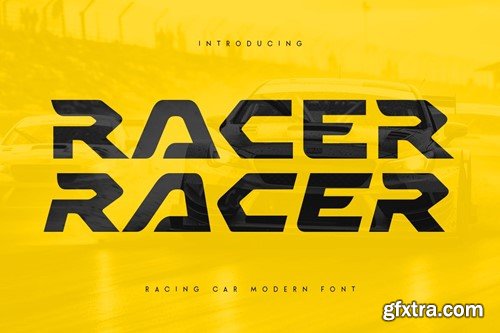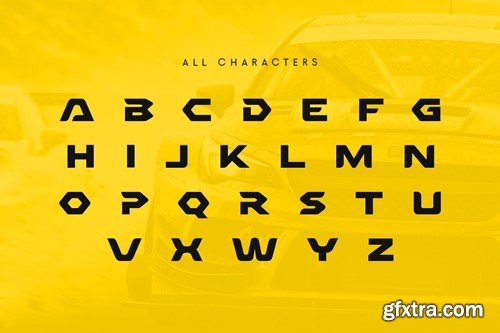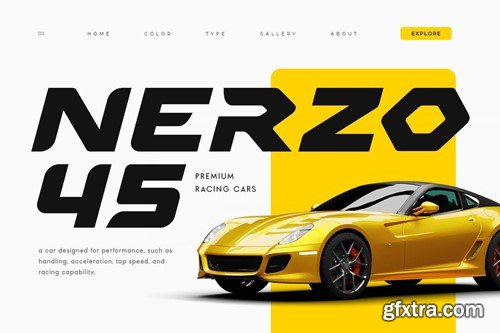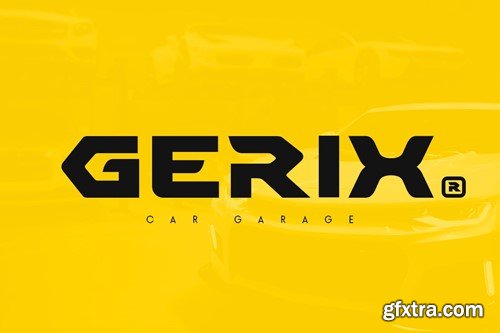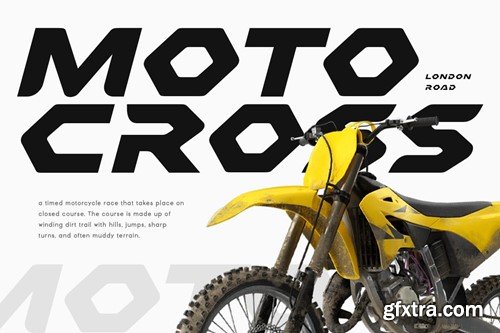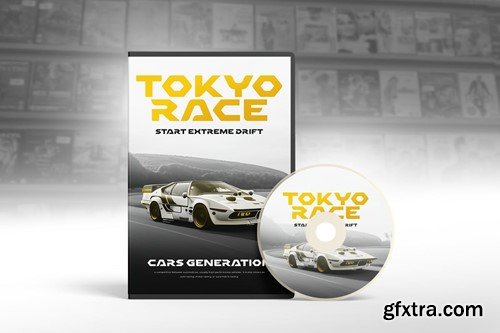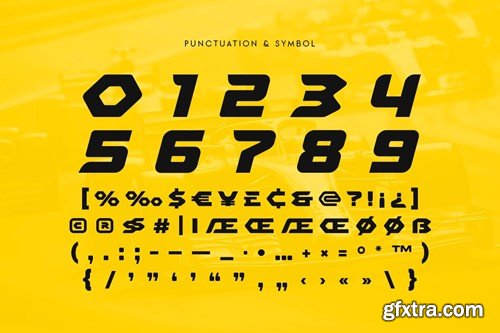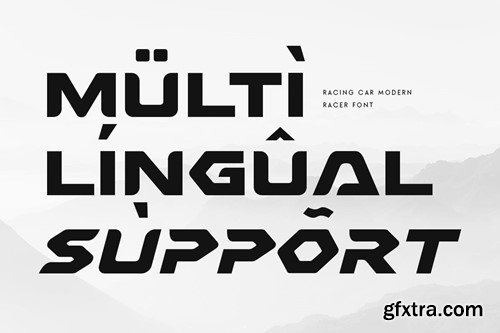
RACER - Racing Car Modern Font S8QBXST
RACER - Racing Car Modern Font
RACER, a Racing Car Modern Font that created special for Branding, Title and more stand out typography for sport and action. It's so perfect to add your style and headline overview for sport, technology, actions, and fighting theme. And specially for this font, we crafted for bold action style and modern feels so enjoy to create any project that will show your main idea out.
• Ready with All Uppercase characters